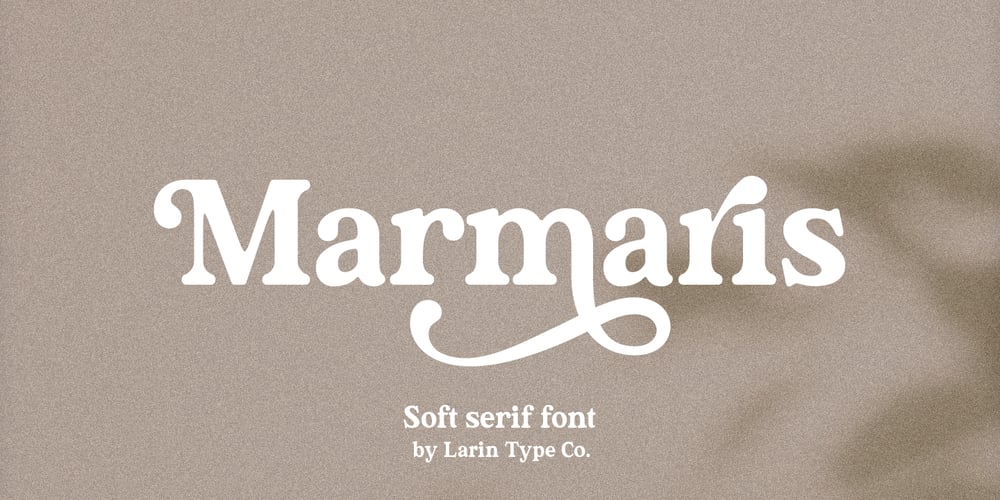
Marmaris
Marmaris font
Marmaris Font Family was designed by Pavel Larin and published by Larin Type Co. Marmaris contains 1 styles and family package options. Marmaris this is a soft and elegant serif font.It carries a bold weight, round shapes it is well readable and works well in headlines and with text. This font is suitable for a wide variety of projects such as: logos, labels, branding projects, magazines, homeware designs, product packaging, mugs, quotes, posters and much more. It can also be more expressive and playful, thanks to the many alternatives and ligatures that are harmoniously combined in this font and make it more attractive and versatile. Try to change the alternatives, ligatures and you will get a lot of options for your project that will make it unique.